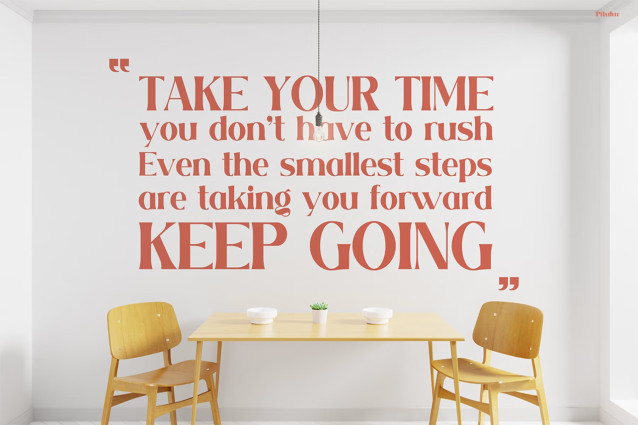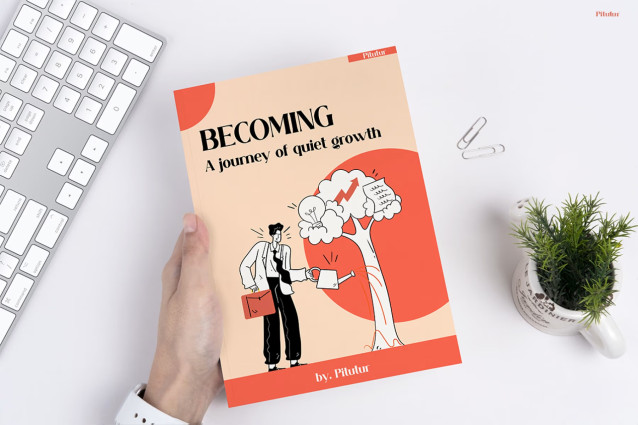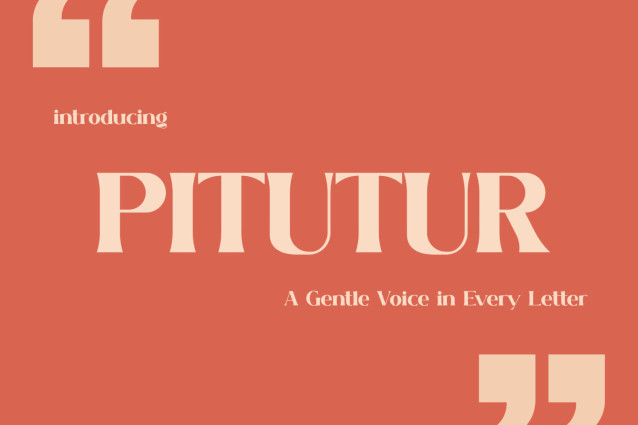
PITUTUR – Warm Editorial Serif
PITUTUR Font is a refined serif typeface with soft curves and balanced proportions. At first glance, it feels elegant, yet friendly and modern. Moreover, the design blends vintage charm with a clean, contemporary look. Each letter is carefully crafted, so it feels expressive and inviting.
As a result, your text looks stylish without losing readability. In addition, the subtle contrast and smooth shapes create a calm visual flow. Therefore, it works perfectly for storytelling and aesthetic content.